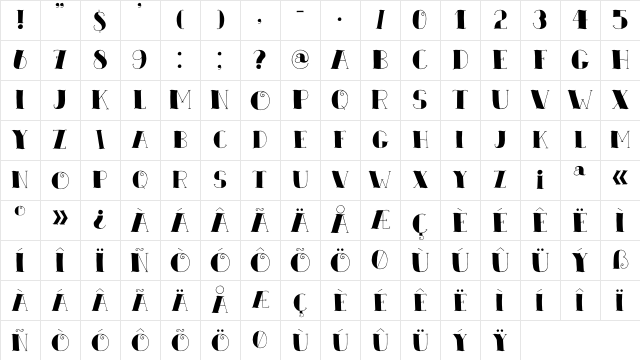
DK Zeebonk Regular
Foundry: David Kerkhoff
Designer: David Kerkhoff
Design Context for DK Zeebonk
DK Zeebonk is a composed and adaptable typeface that performs quietly and consistently across a wide range of design contexts.
Pro Tip: Use DK Zeebonk in both headline and body roles to test its range before committing to a single application.